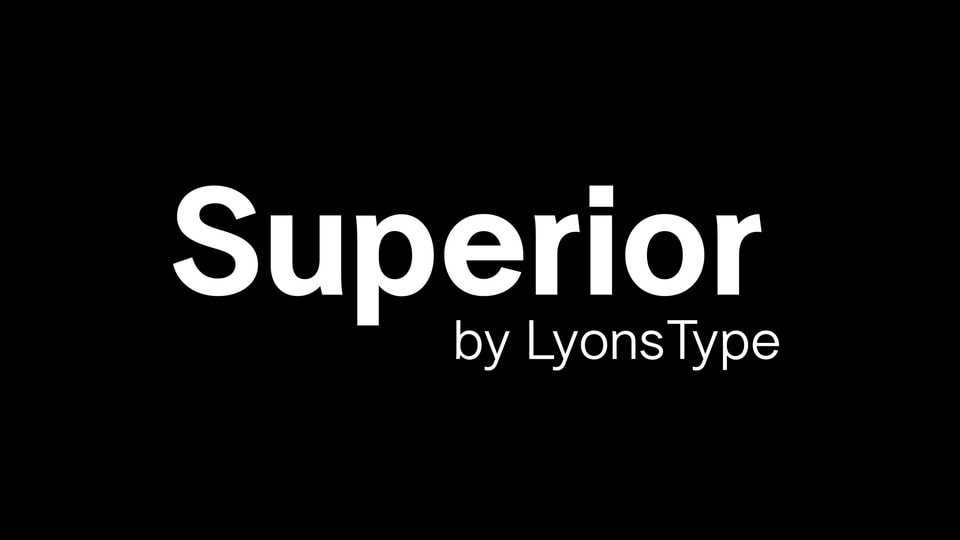
Download LT Superior font, a highly versatile sans-serif typeface that seamlessly blends timeless elegance with contemporary functionality. LT Superior font is a modern classic, designed to adapt effortlessly to a wide range of design applications, making it an indispensable tool for today’s diverse creative projects.
Designer: LyonsType